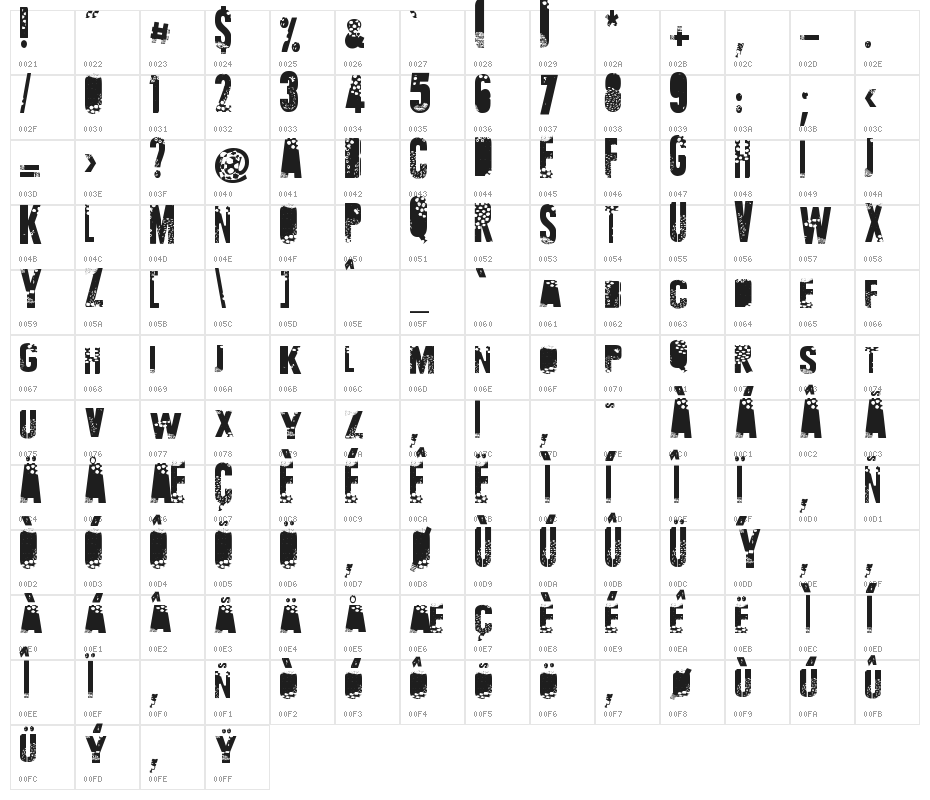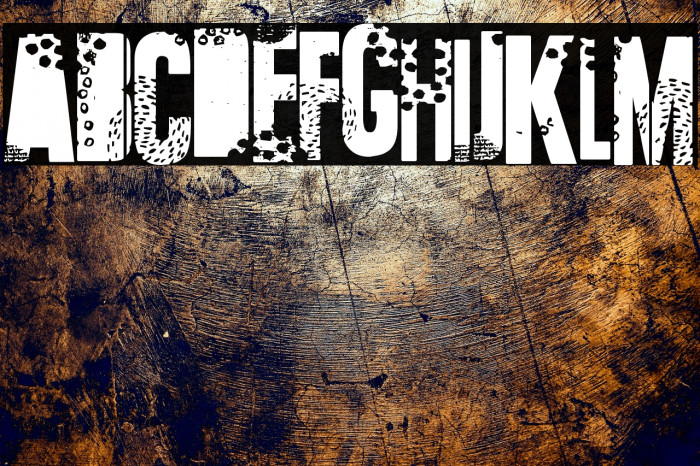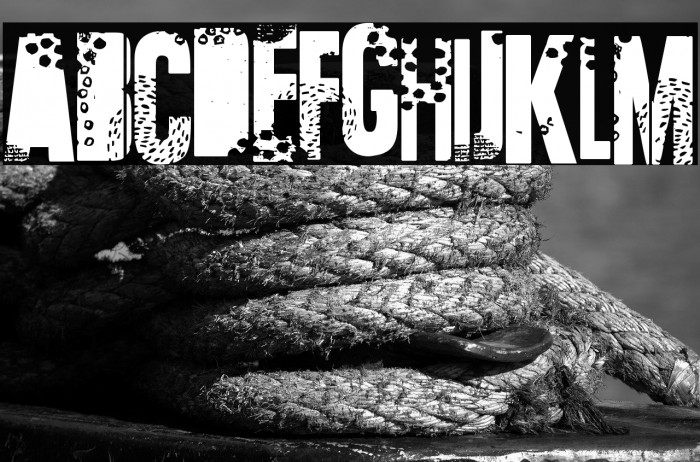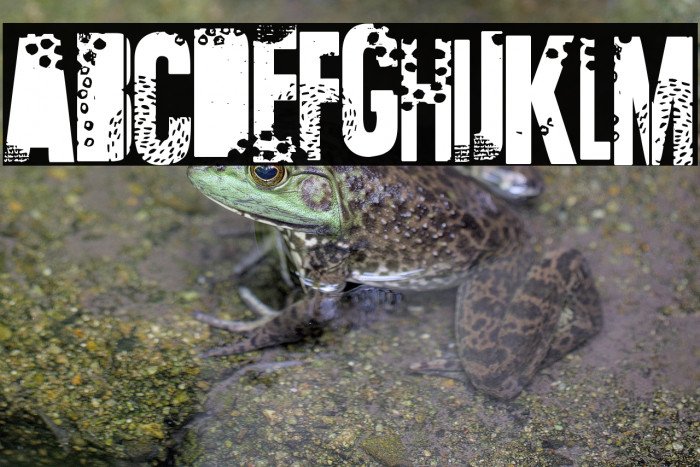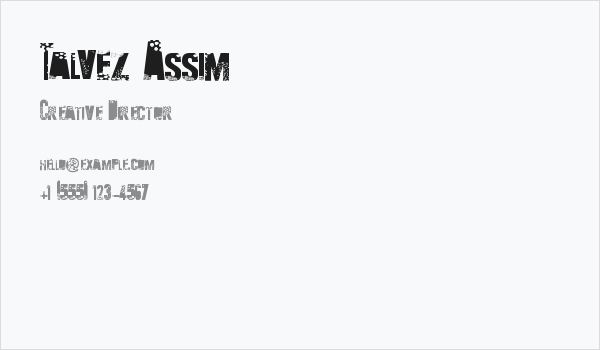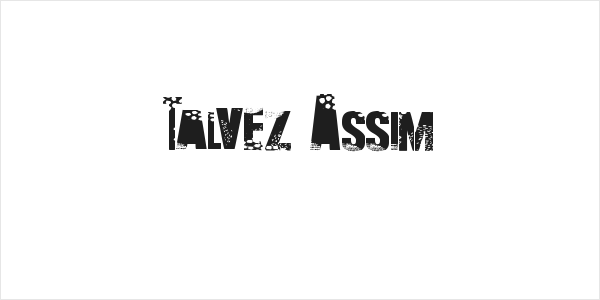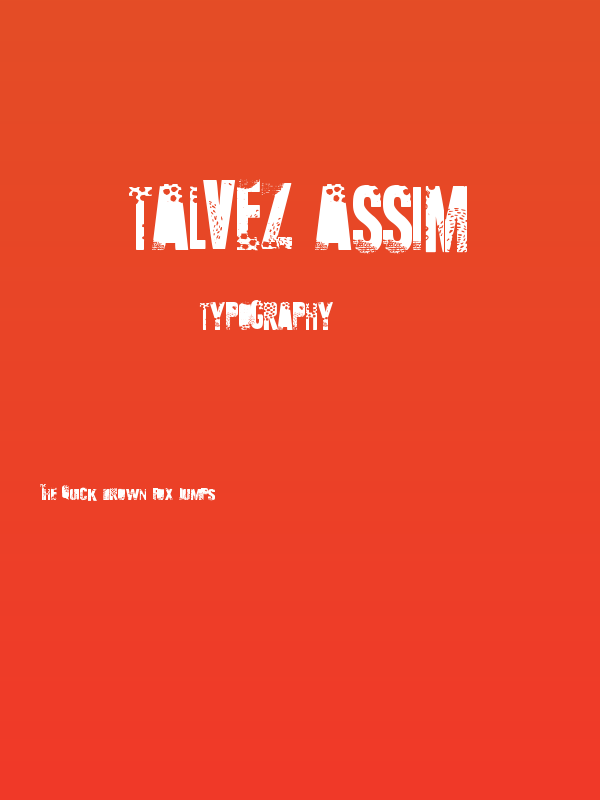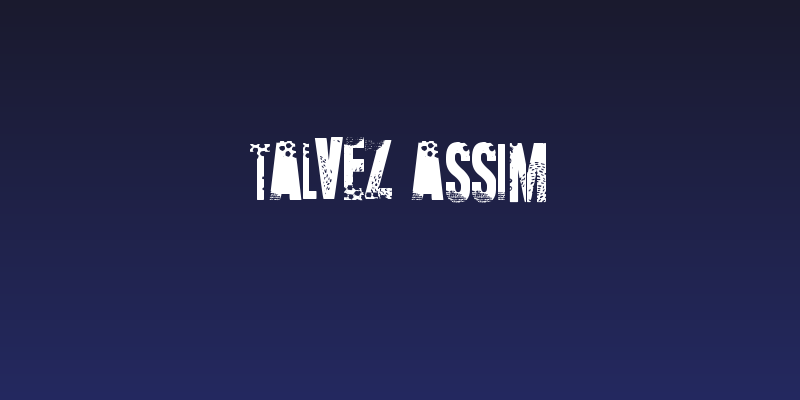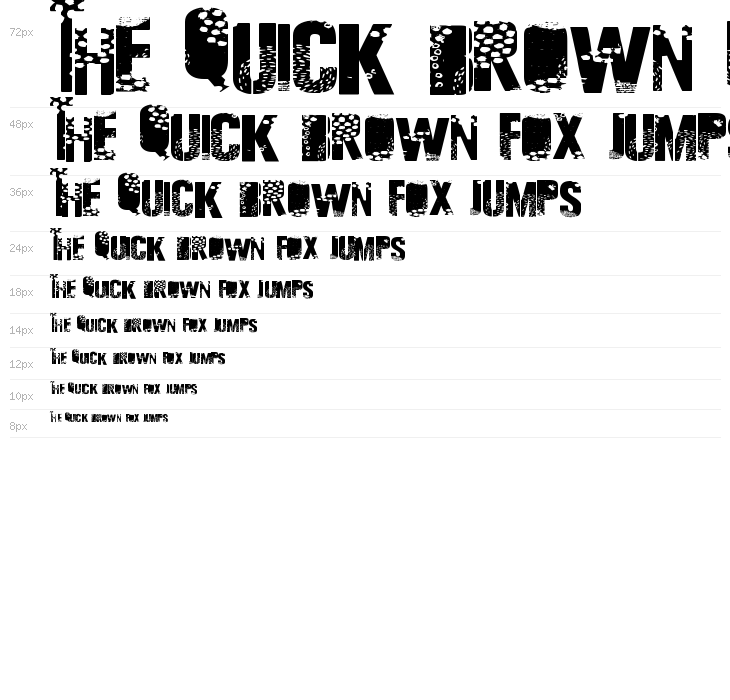
Talvez Assim Font
Talvez Assim Description
This font features a bold and distressed style, characterized by its heavy, block-like letters with a unique textured pattern that resembles erosion or decay. The uppercase and lowercase letters maintain a consistent width, giving the font a uniform appearance despite its rugged texture. Numbers and special characters follow the same design, ensuring a cohesive look across all glyphs. The font's distinct style makes it stand out, with a strong visual impact that is both modern and edgy. Its decorative nature lends itself well to projects that require a bold statement.
| Overall Style | Modern, Edgy |
| Proposed Projects | Ideal for posters, album covers, branding for edgy or alternative products, and any design needing a strong, impactful visual element. |